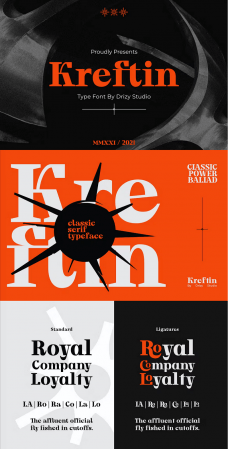
Kreftin font is a special font for modern display serif font. Offering all the basic styles you will need for a successful project.
Kreftin Features
Uppercase & Lowercase
Numeral & Punctuation
Ligatures